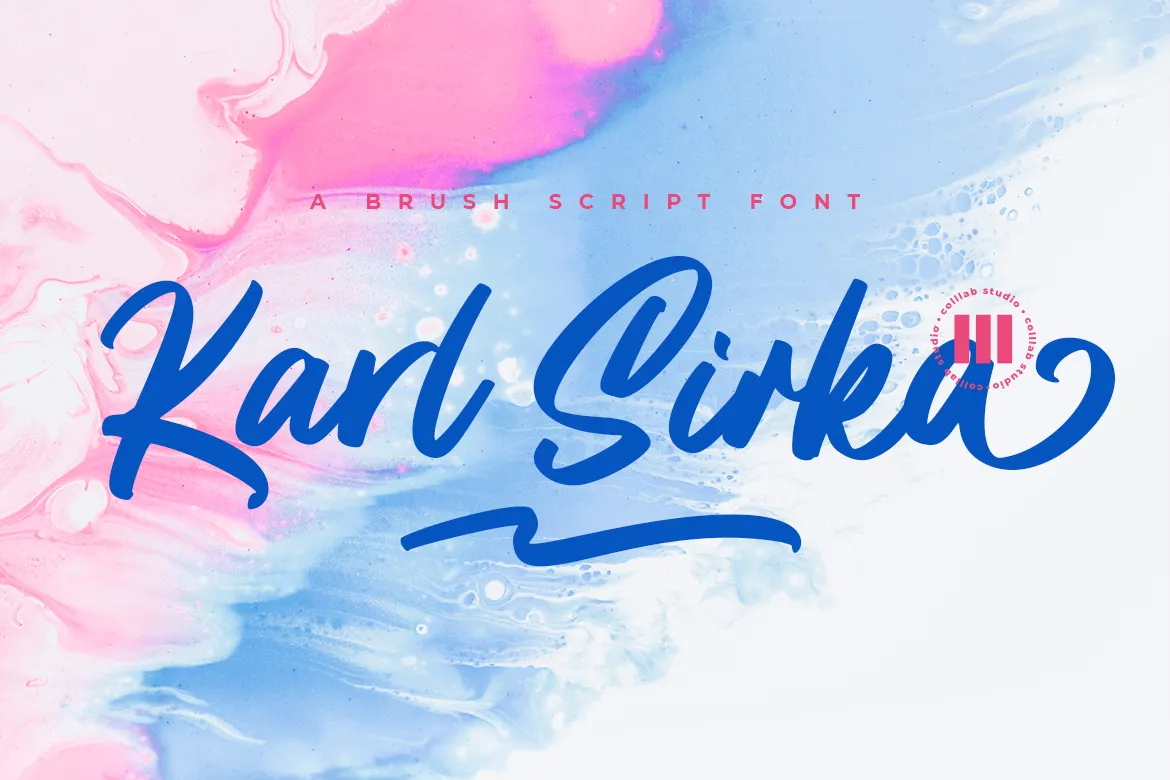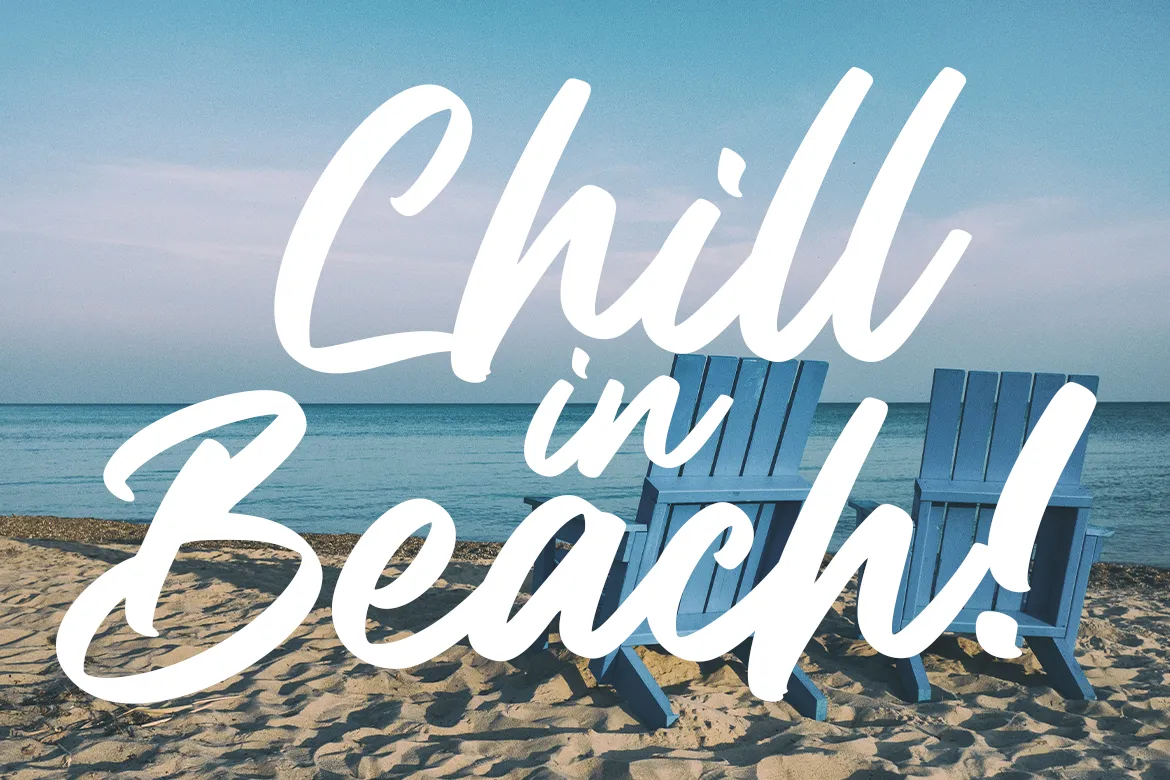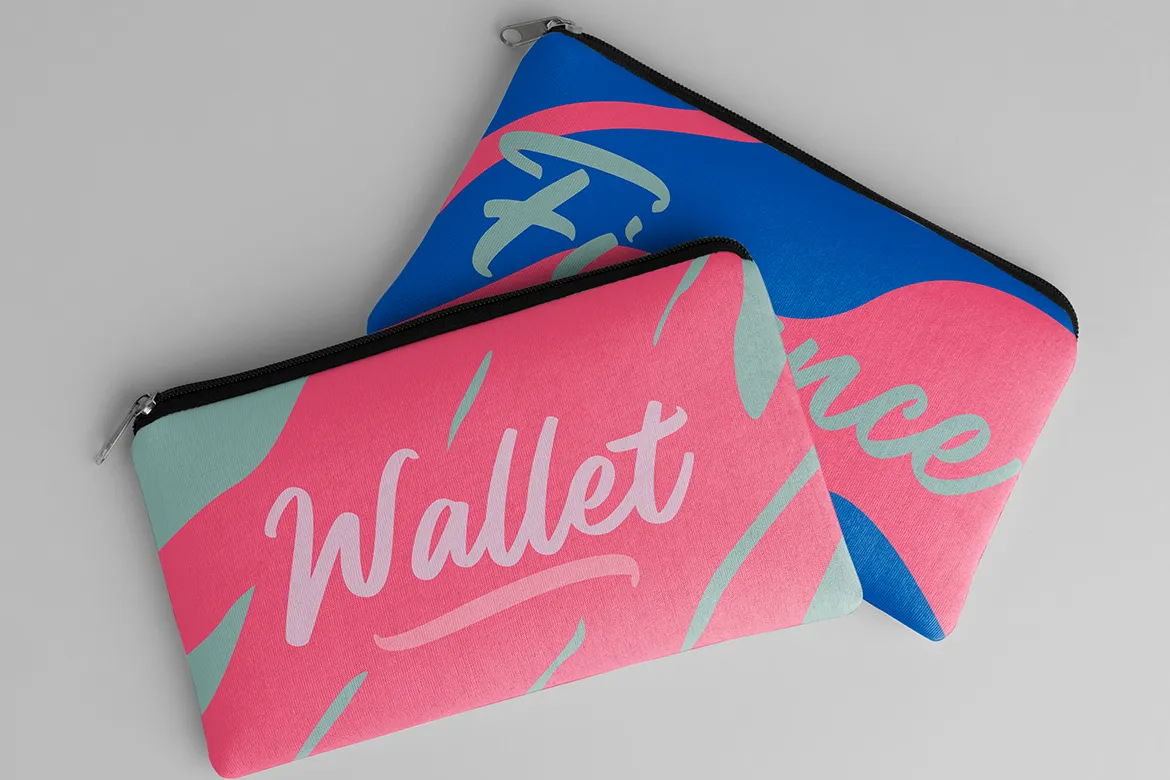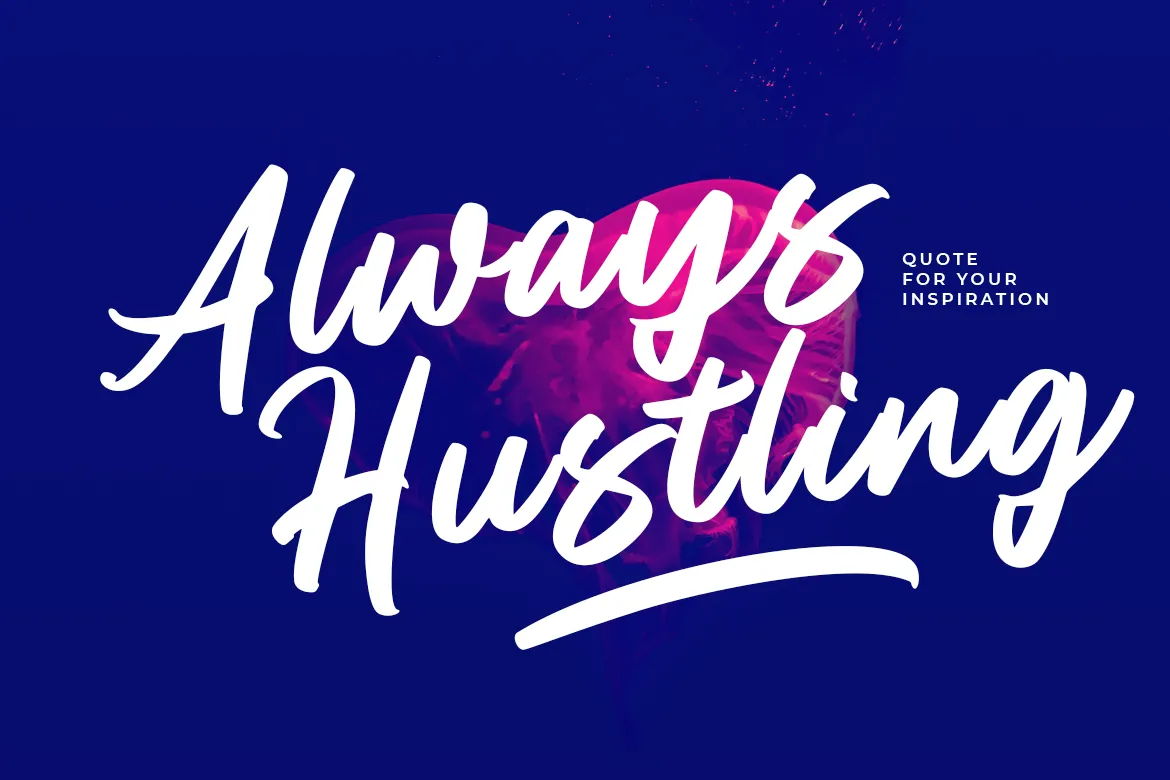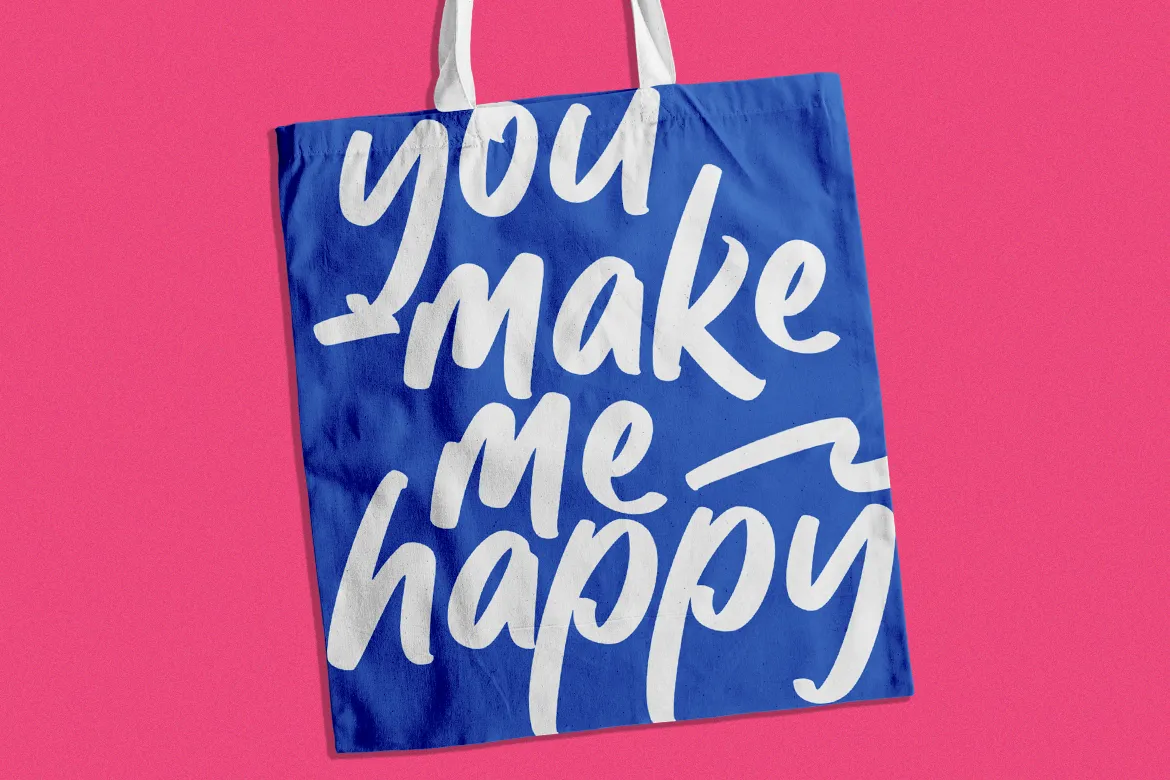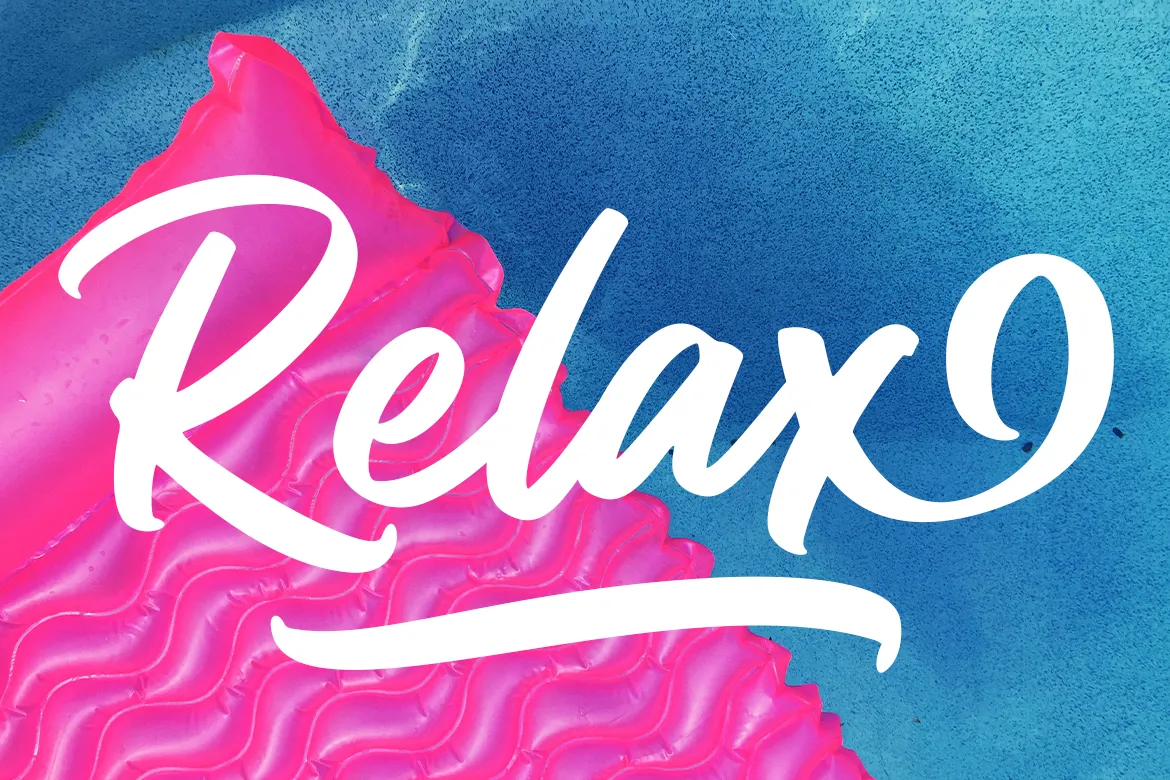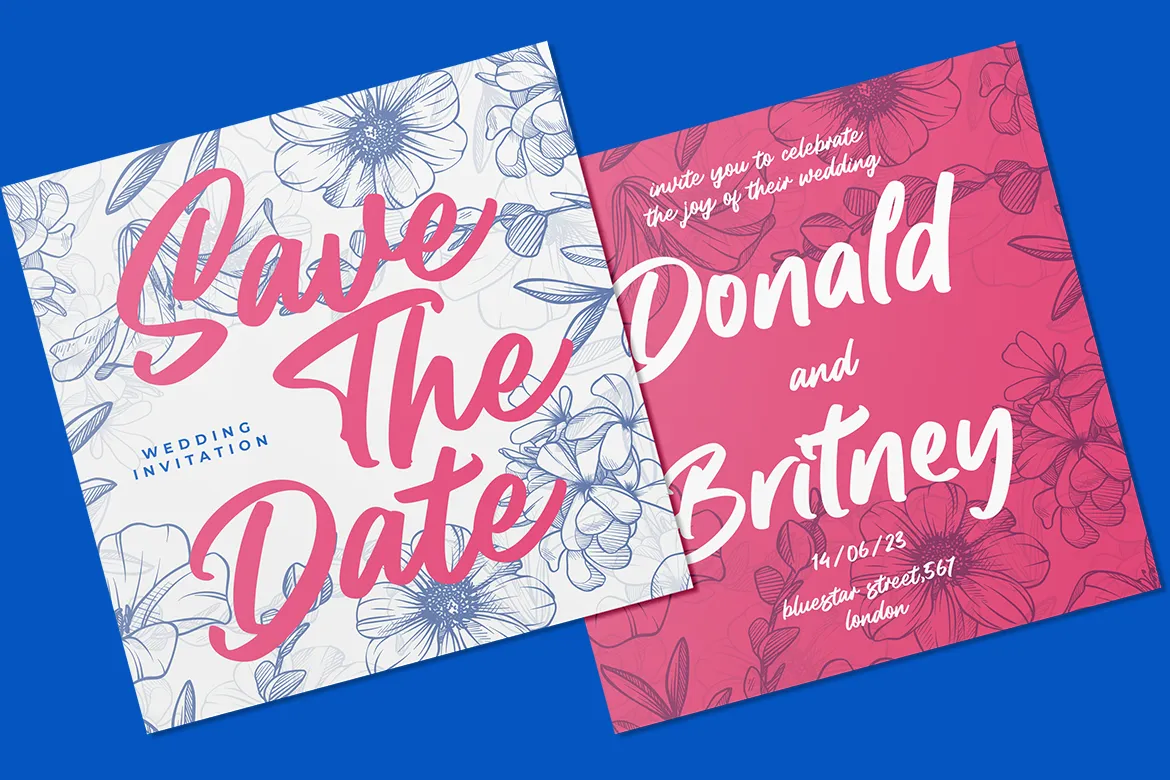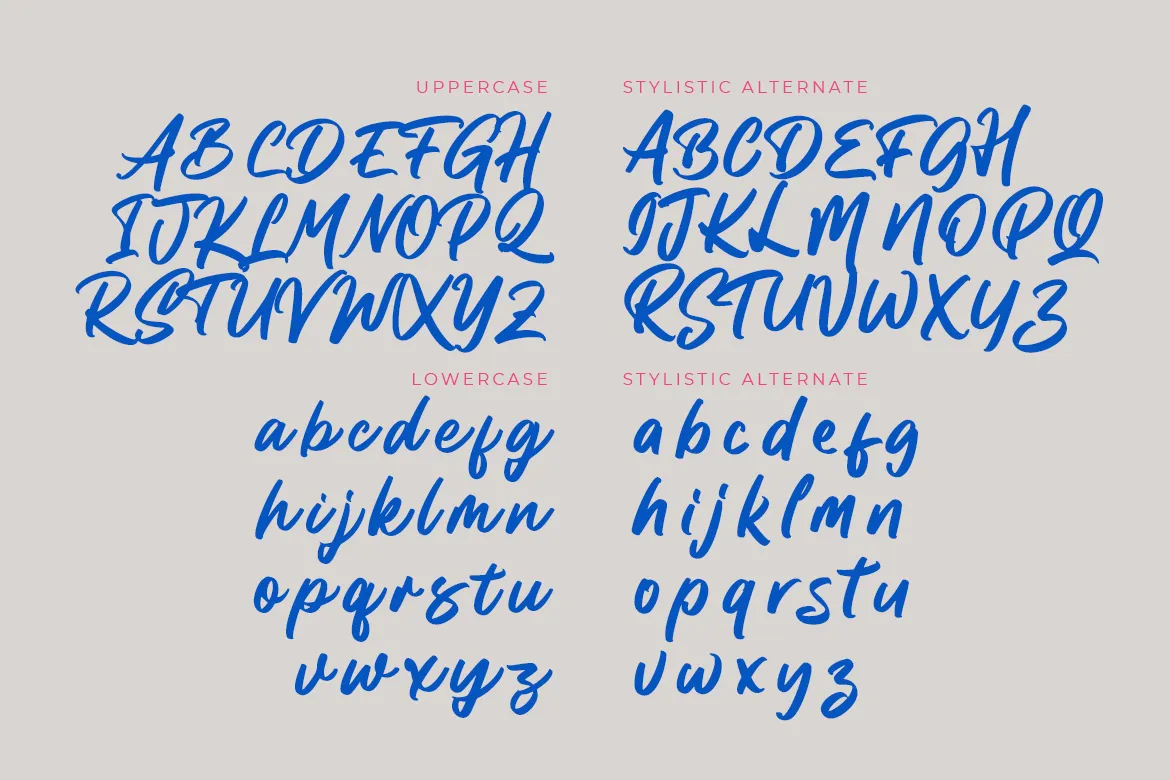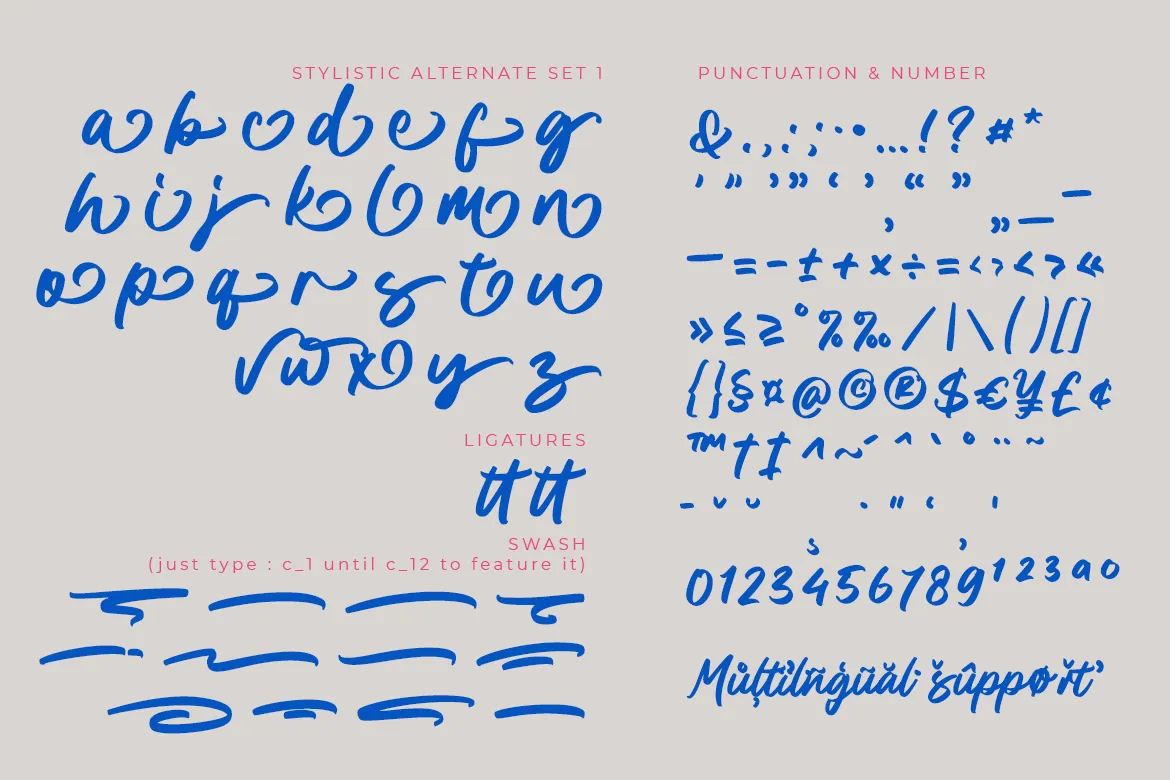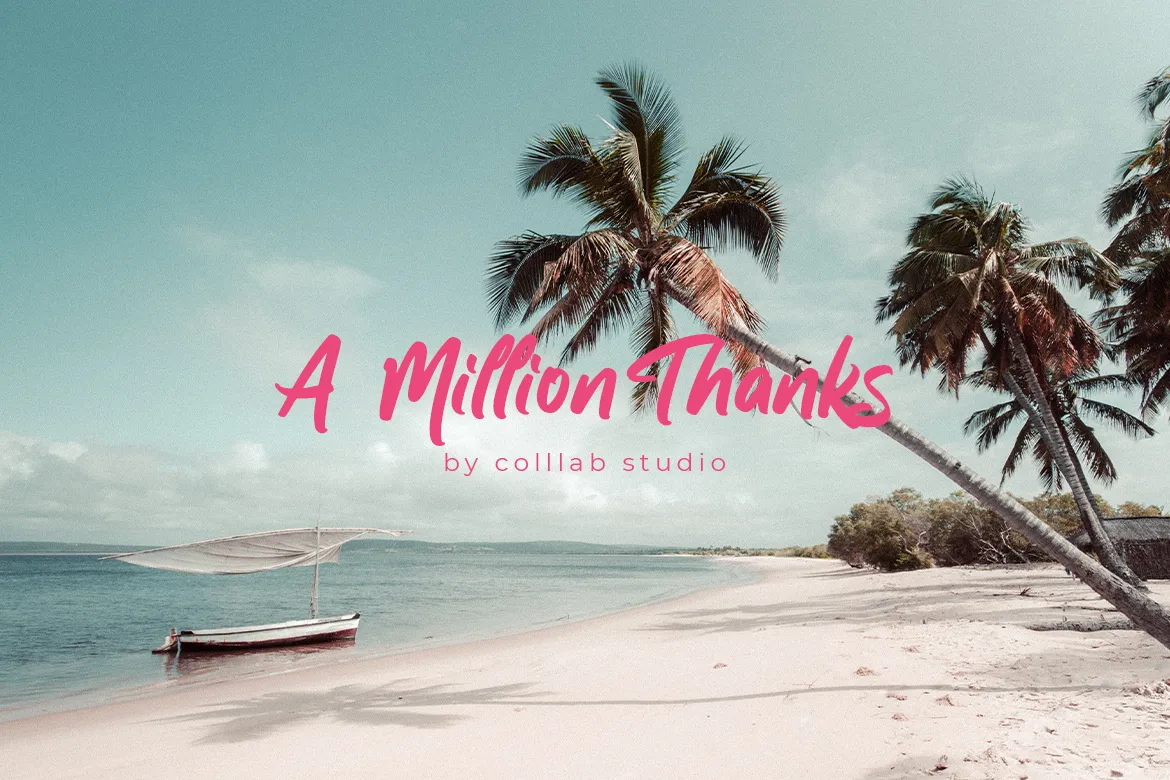
Karl Sirka
Karl Sirka is inspired by 20th century European design. Brush lettering was the fashion of the time and each letter has been thoughtfully constructed to highlight its form.
The curves make Karl Sirka feel more organic and hand drawn while being chic, modern, and refined. Karl sirka is suitable for branding, packaging elements, logo designs, as well as book covers and much more.
• 430 Glyps,
• 81 Stylistic Alternates
• Ligatures
• Stylistics alternates both Uppercase and Lowercase
• Multilanguage Support ( 76 Languages )